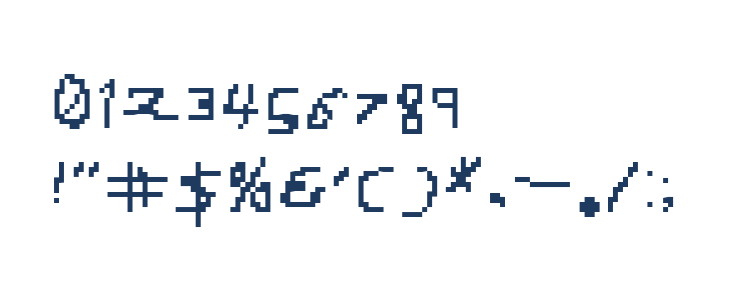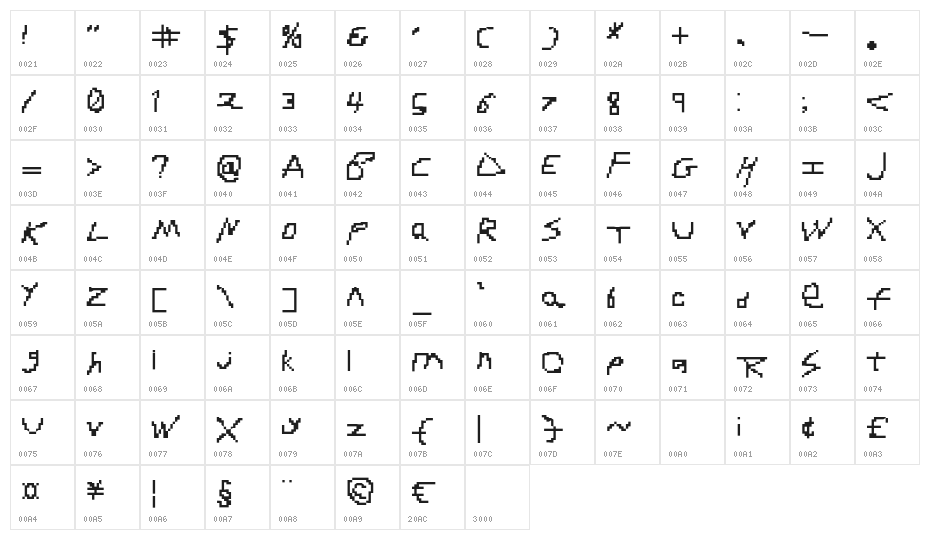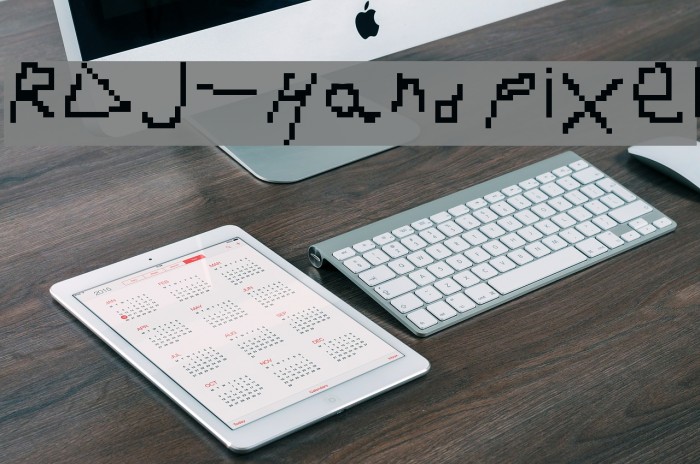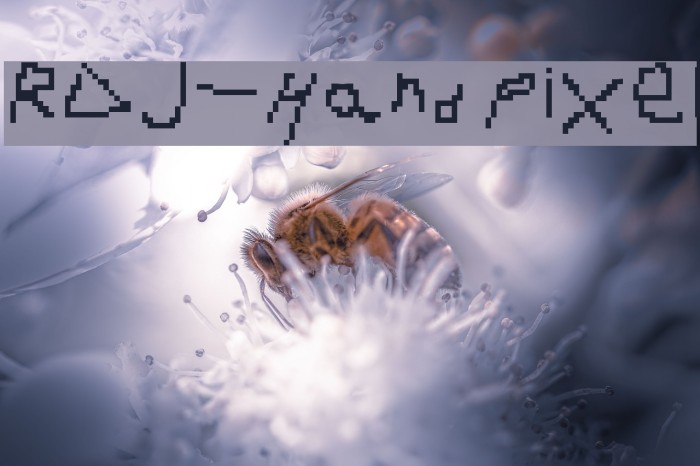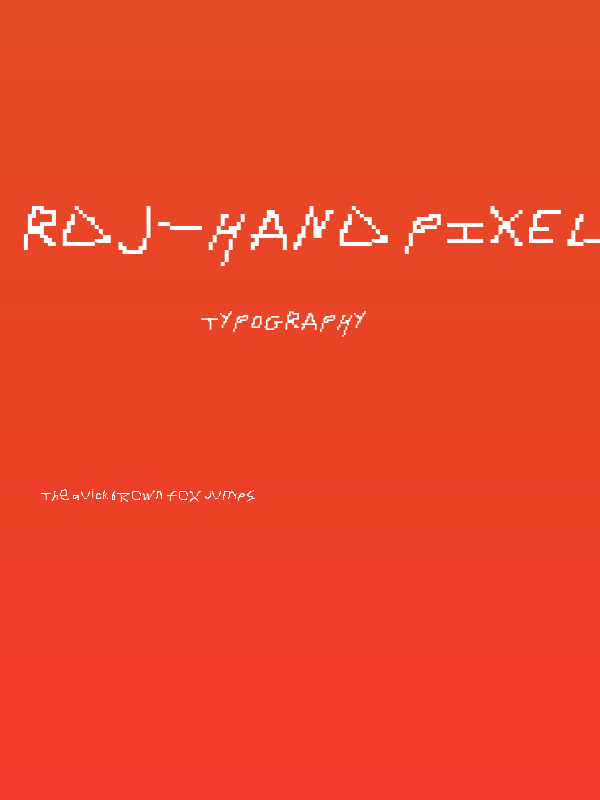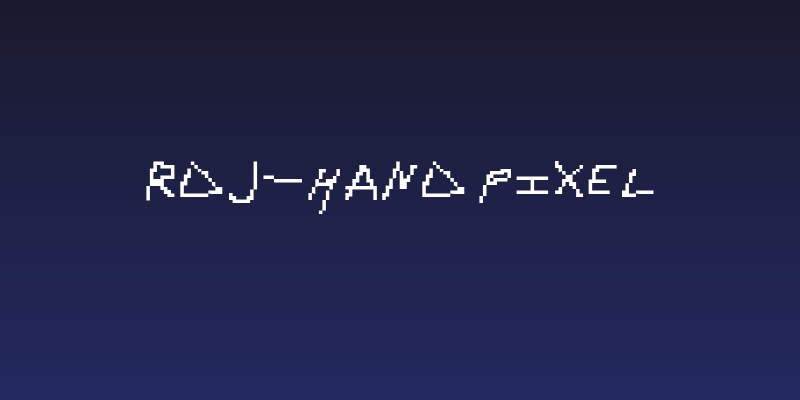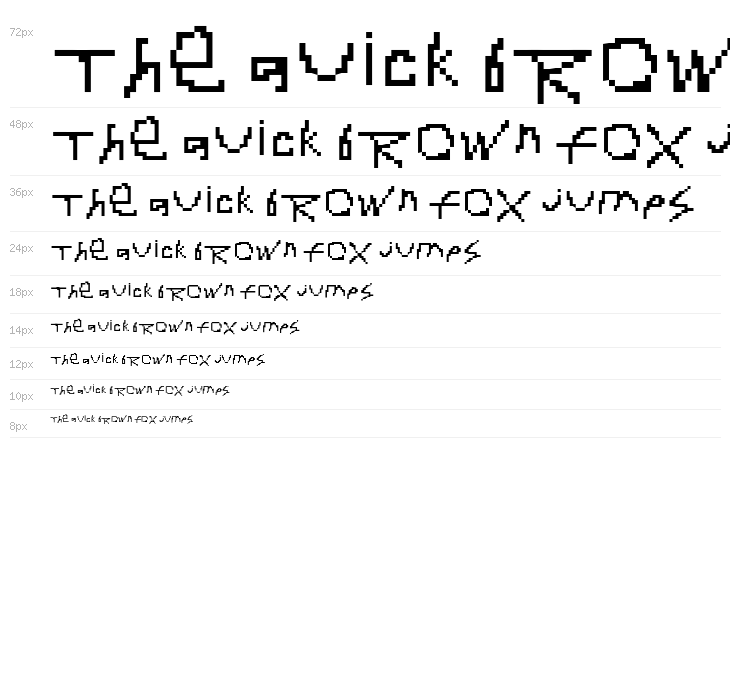
RDJ-Hand Pixel Font
RDJ-Hand Pixel Description
This font features a pixelated, hand-drawn style that combines elements of both digital and organic aesthetics. The characters are composed of blocky, jagged lines that give a sense of a retro, video game-inspired look. Each letter maintains a unique, quirky appearance, with varying heights and widths that contribute to its playful and informal vibe. The uppercase and lowercase letters exhibit a consistent pixelated texture, while the numbers and special characters follow the same stylistic approach, ensuring uniformity across the typeface. This font's distinctive style makes it suitable for creative projects that aim to evoke nostalgia or a sense of fun.
| Overall Style | Retro, Playful |
| Use Case | Logos, Posters, Digital Art |
| Proposed Projects | Ideal for video game graphics, retro-themed designs, digital art projects, and playful branding. |